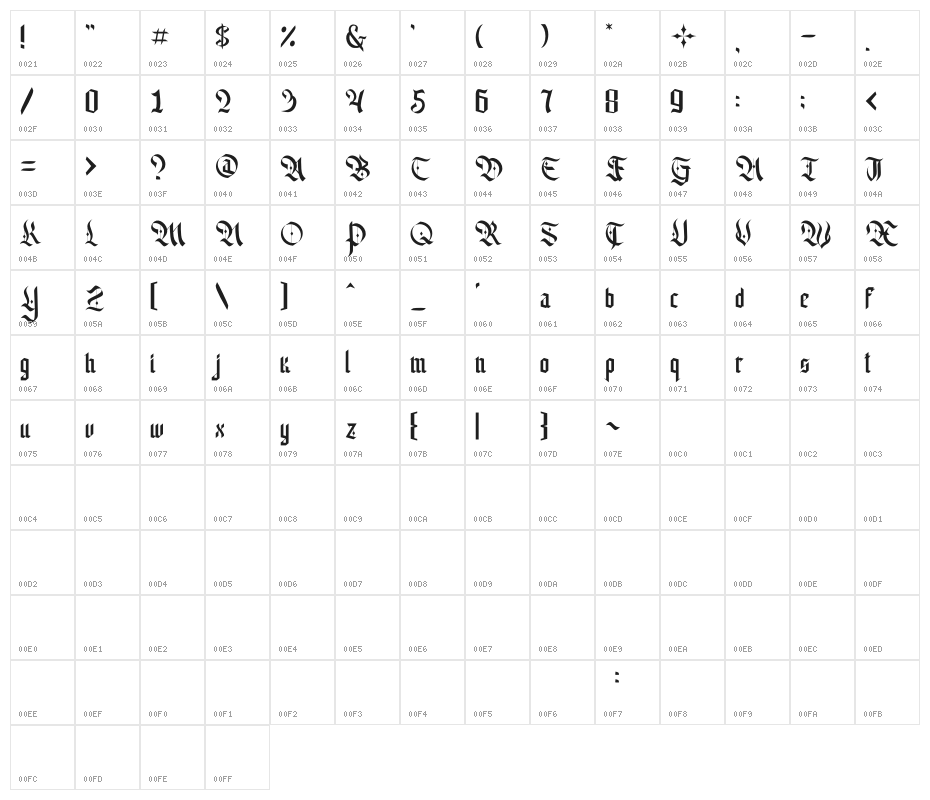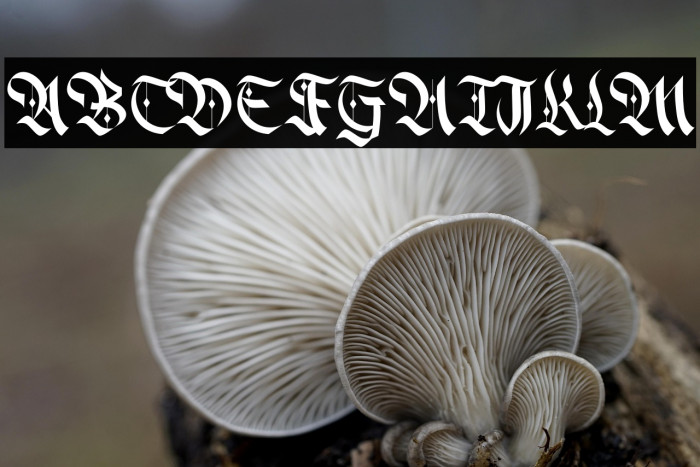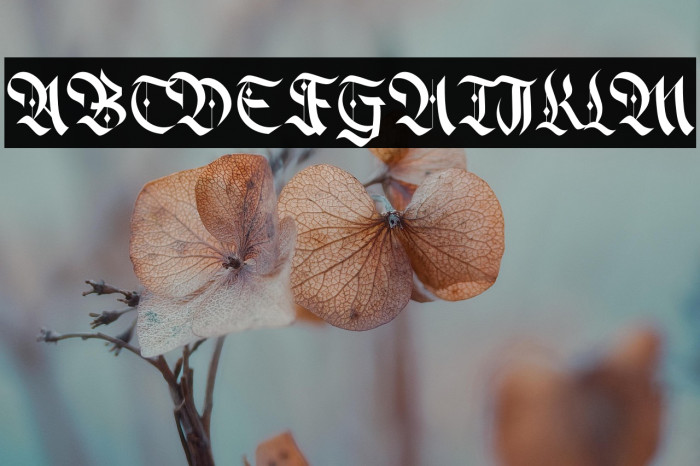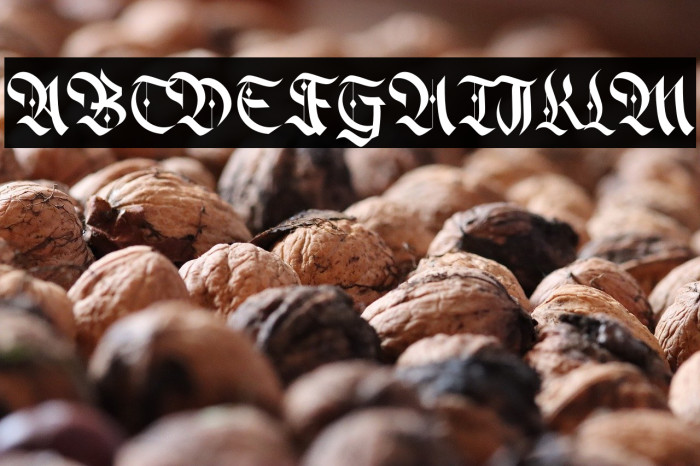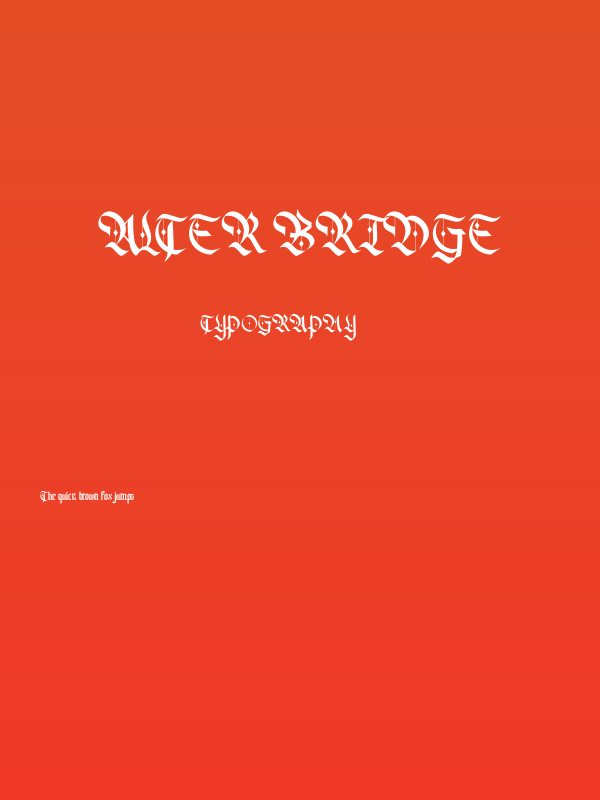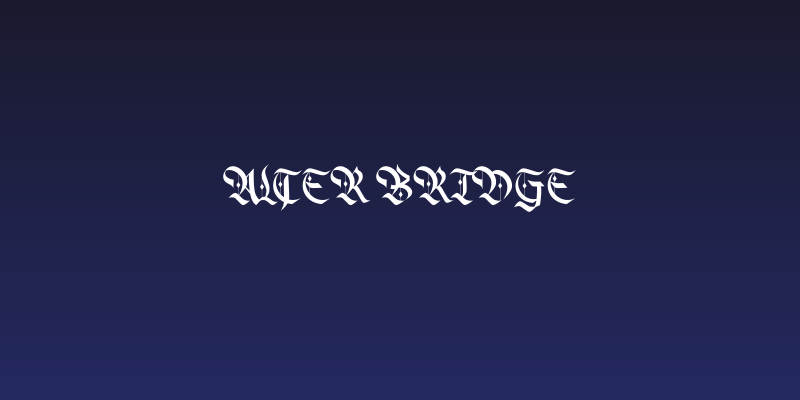
Alter Bridge Font
Alter Bridge Description
This font features a bold and striking blackletter style, characterized by its sharp, angular lines and dramatic flourishes. The uppercase letters are ornate, with intricate detailing that gives them a gothic appearance. The lowercase letters maintain the same angularity but are slightly more subdued, providing a balanced contrast. Numbers and special characters follow the same stylistic cues, ensuring consistency across all elements. This font's bold presence makes it ideal for projects that require a strong visual impact.
| Overall Style | Gothic, Decorative |
| Proposed Projects | Ideal for use in branding, album covers, posters, and any design requiring a gothic or medieval aesthetic. |